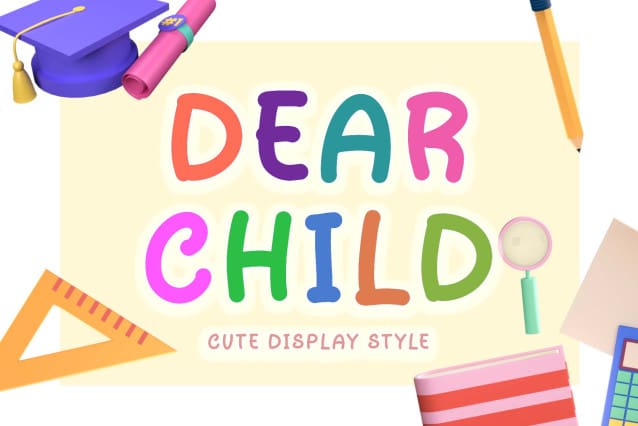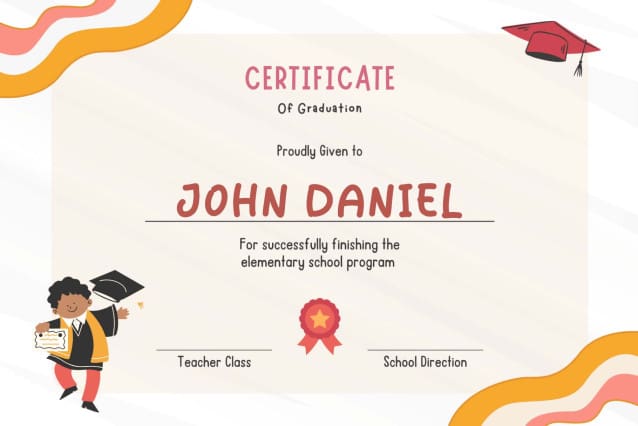
Dear Child Font
Dear Child Font is a cute display font. This font is equipped with uppercase, lowercase, numerals, punctuations and multilingual support. Very suitable for back to school, graduations, kids, comics, children, logos, banners, magazines, branding, posters, SVG, KDP and others.